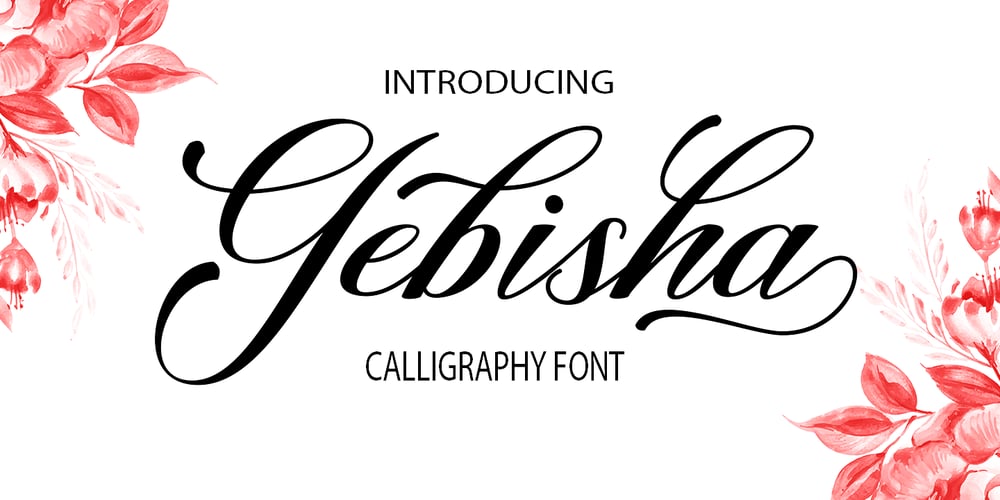
Gebisha Script Font Family was designed by Romi Rahmadi and published by Romie Creative. Gebisha Script contains 1 styles and family package options. Gebisha Script is a modern calligraphy design, including Regular and Slant. This typeface is casual and beautiful with swash. It can be used for various purposes. such as logos, product packaging, wedding invitations, branding, headlines, signage, labels, signatures, book covers, posters, quotes, and more.Gebisha Script has an OpenType style replacement feature, binder and international support for most Western languages. To activate the OpenType Stylistic alternative, you need a program that supports OpenType features such as Adobe Illustrator CS, Adobe Indesign & CorelDraw X6-X7, Microsoft Word 2010 or newer versions. How to access all alternative characters using Adobe Illustrator:https://www.youtube.com/watch?v=XzwjMkbB-wQGebisha Script is coded with Unicode PUA, which allows full access to all additional characters without having special design software. Mac users can use the Font Book, and Windows users can use the Character Map to view and copy one of the additional characters to paste into your favorite text editor / application. How to access all alternative characters, using Windows Character Map with Photoshop:https://www.youtube.com/watch?v=Go9vacoYmBwIf you need help or have questions, let me know. I am happy to help 🙂 Thank you & Happy Designing!